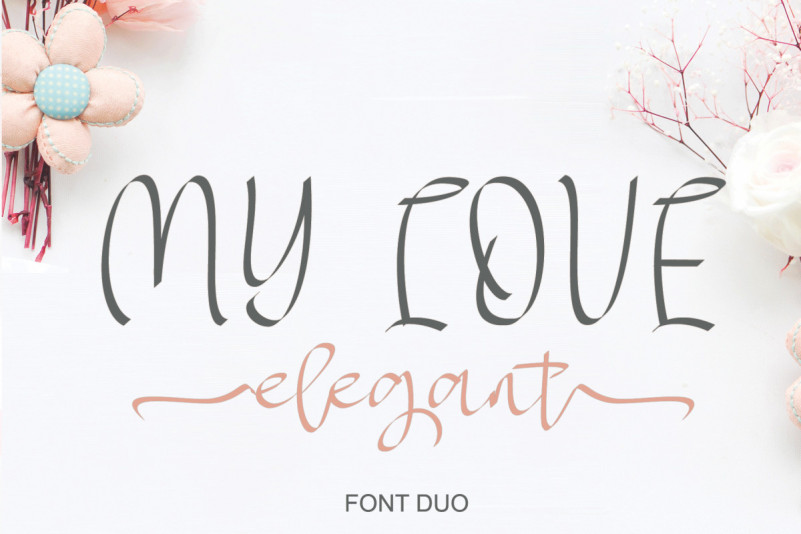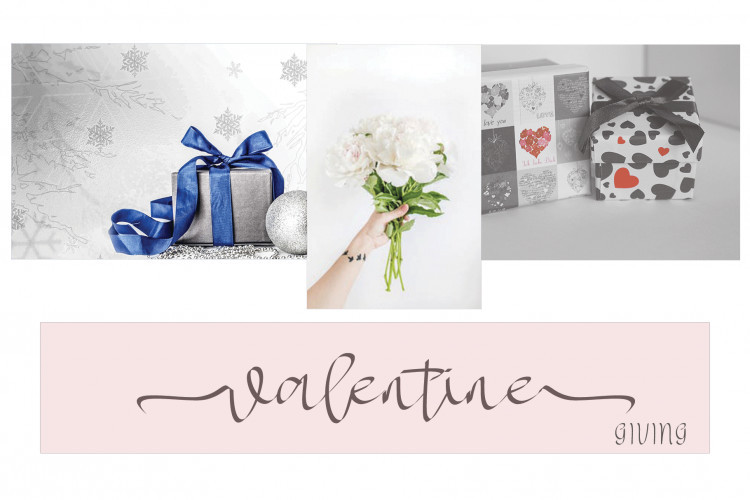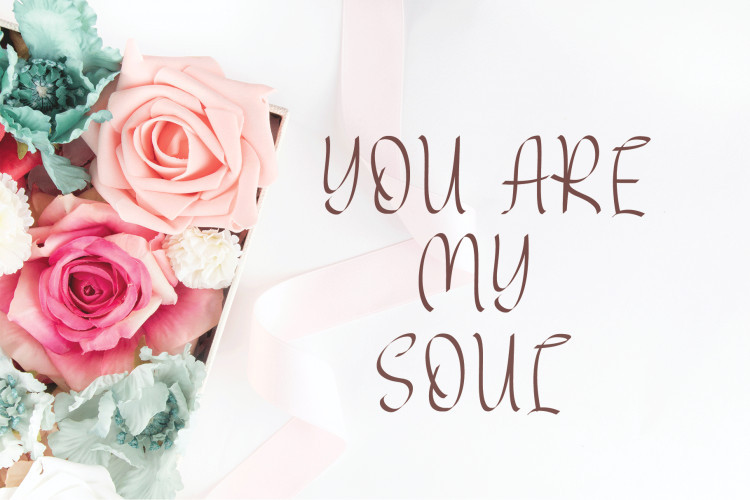
Affilliatte Script Font
Affilliatte Area is an elegant and dainty duo font (handwritten and sans serif). It is defined by smooth curves and is perfect for fashion branding or editorial designs. This font is PUA encoded which means you can access all of the glyphs and swashes with ease!